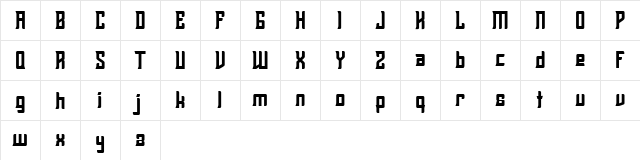
Relods FREE Regular
Design Context for Relods FREE Typeface
Relods FREE is a composed and adaptable typeface that performs quietly and consistently across a wide range of design contexts.